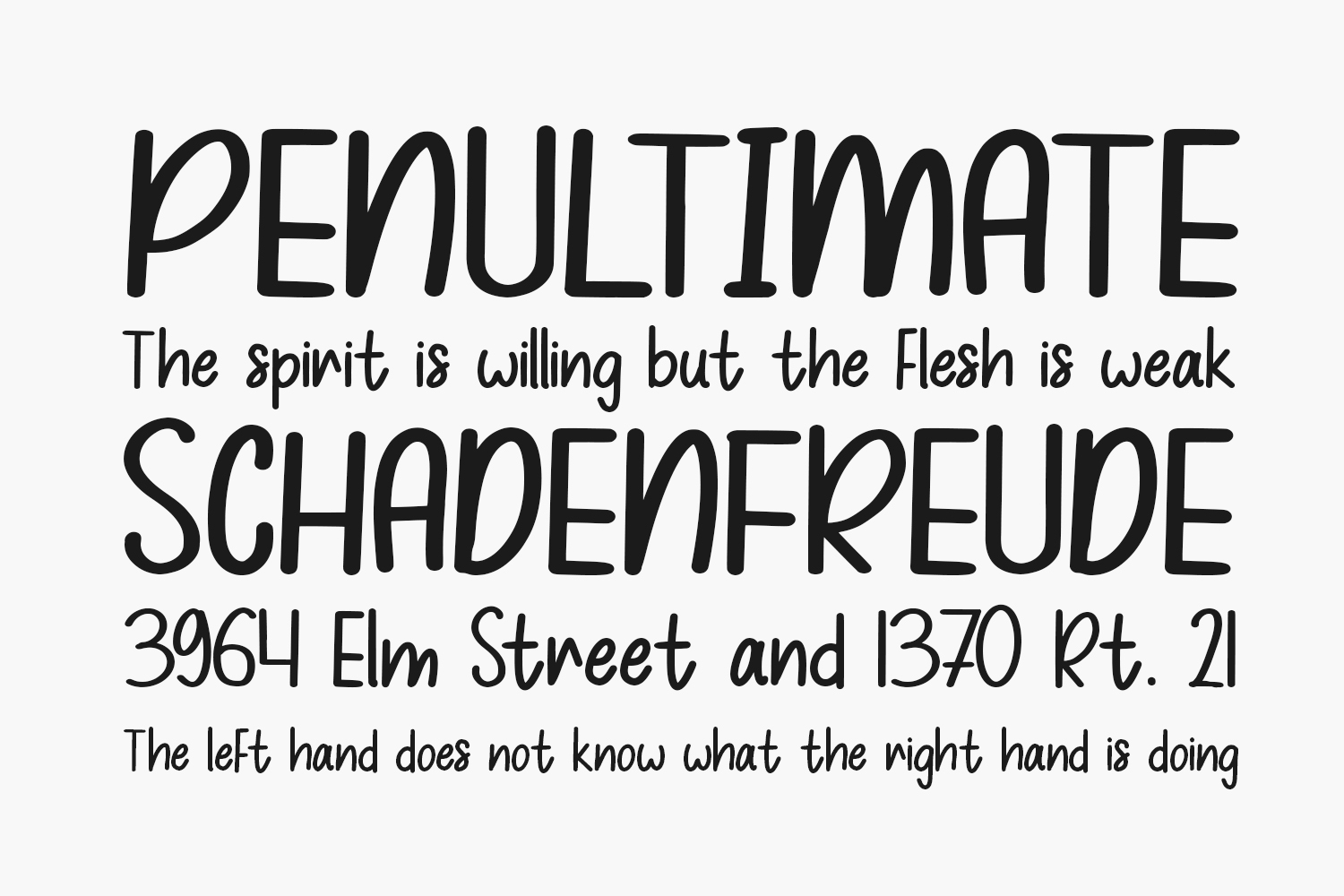
Elione Free Font is a friendly and beautiful display font with a modern design. It’s perfect for many different projects. Elione can be easily mixed and matched with your favorite ideas to make your designs more lively, while still maintaining a clean, elegant look that’s sure to impress. Elione Free Font was designed by Kong Font and is free for personal use only. Please purchase the full version for commercial use.